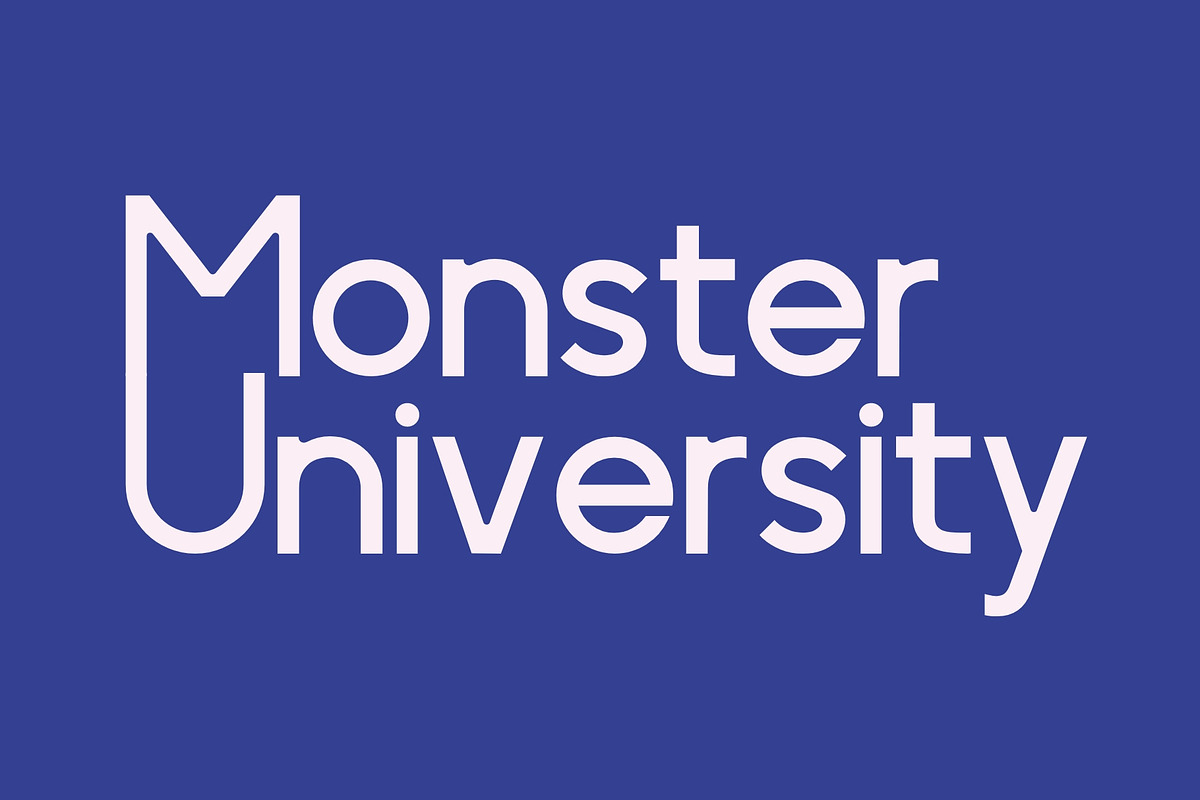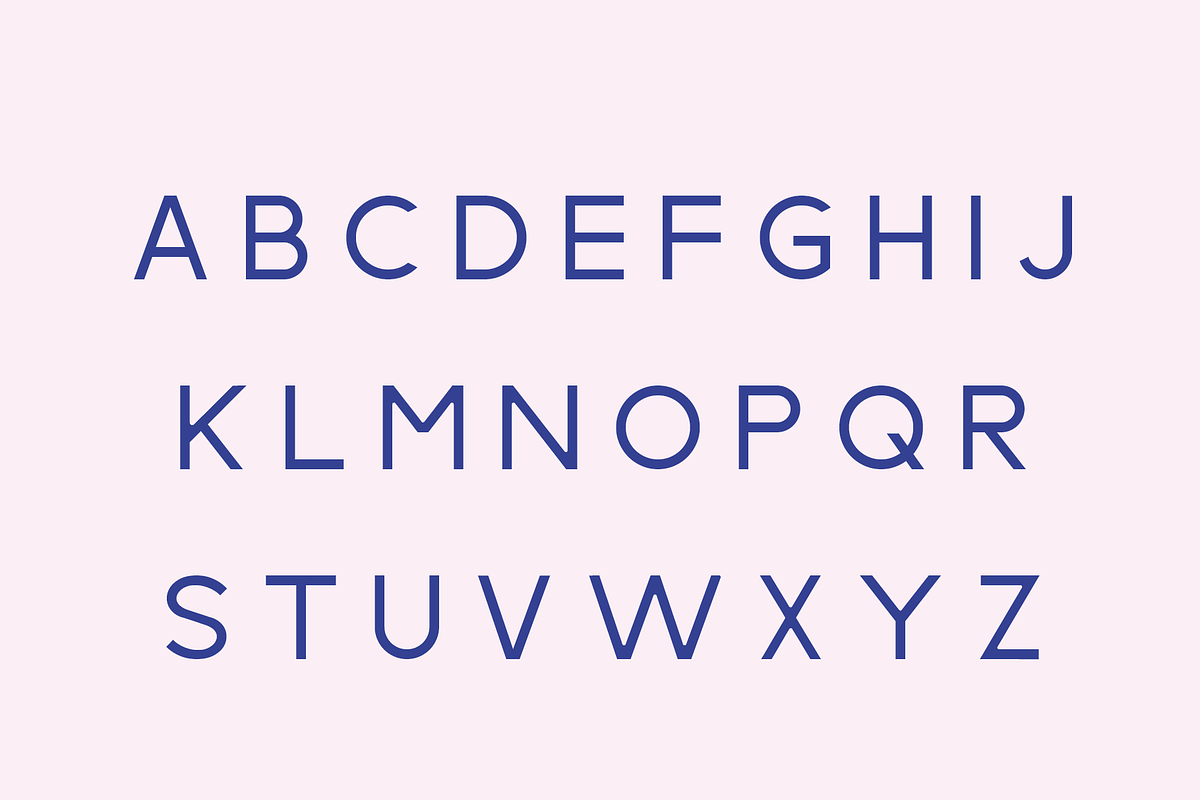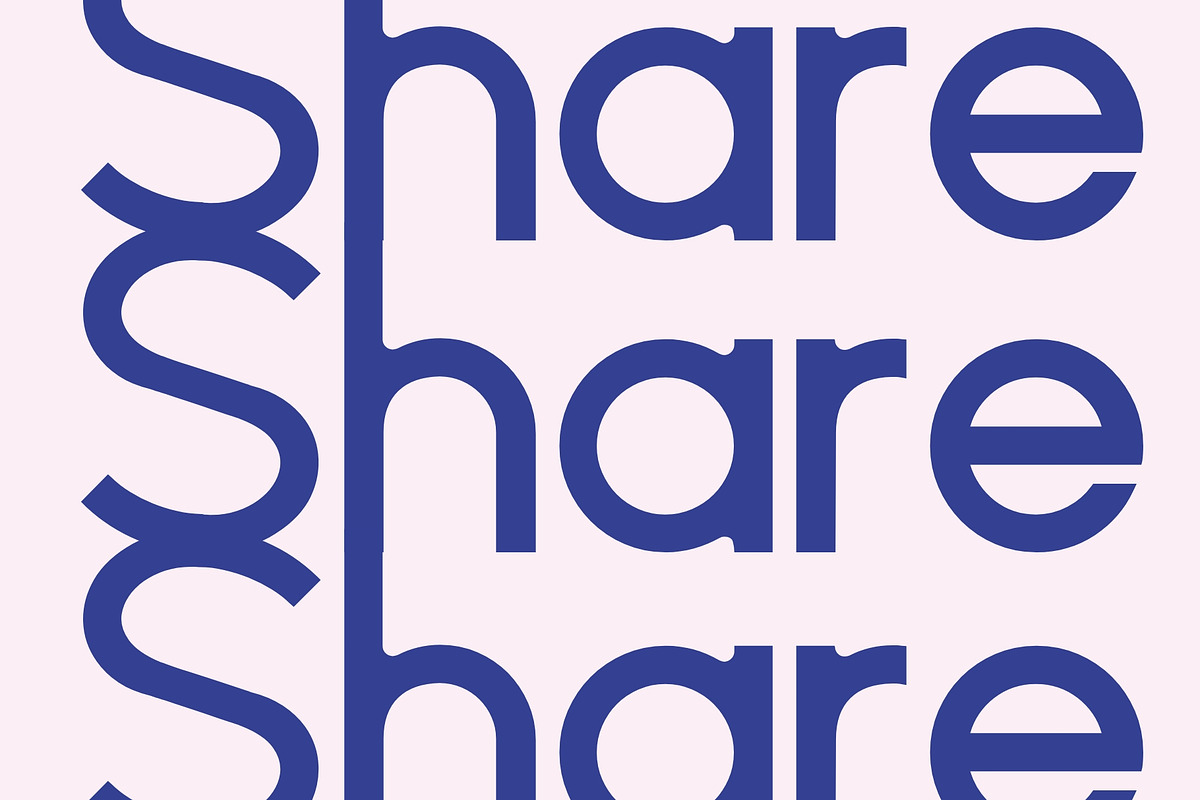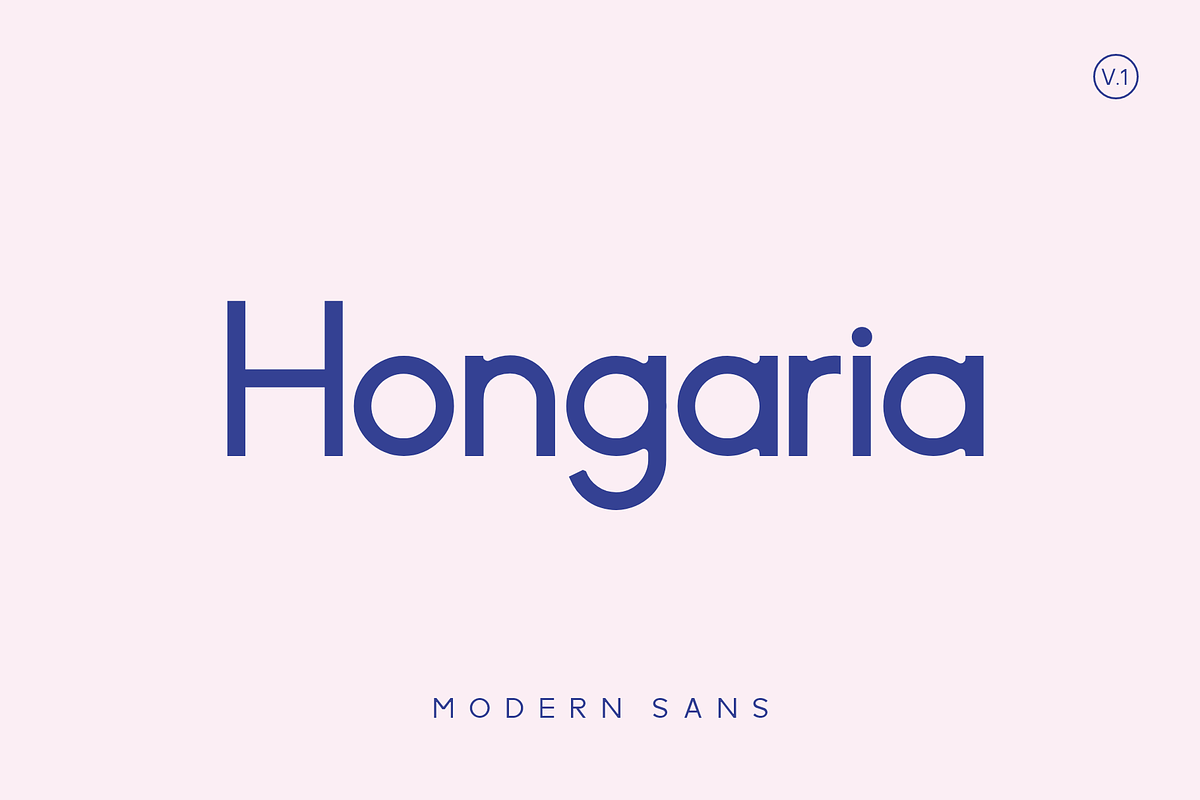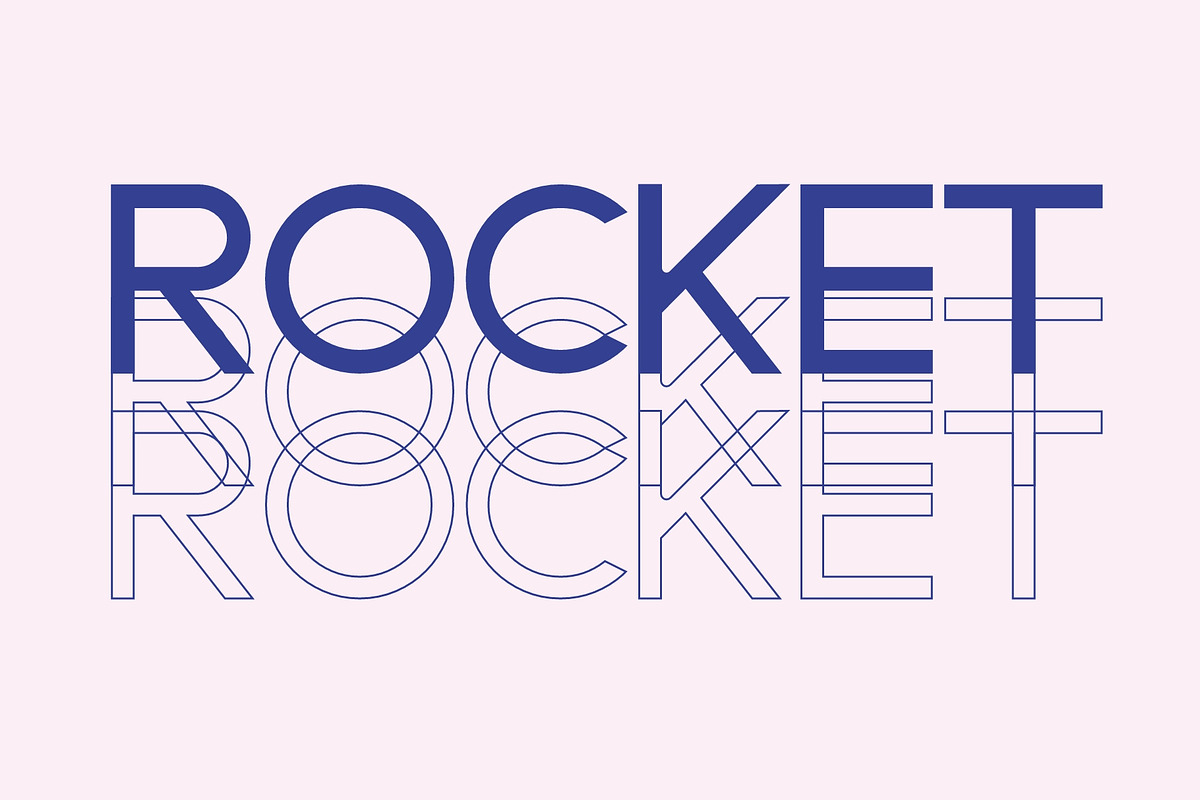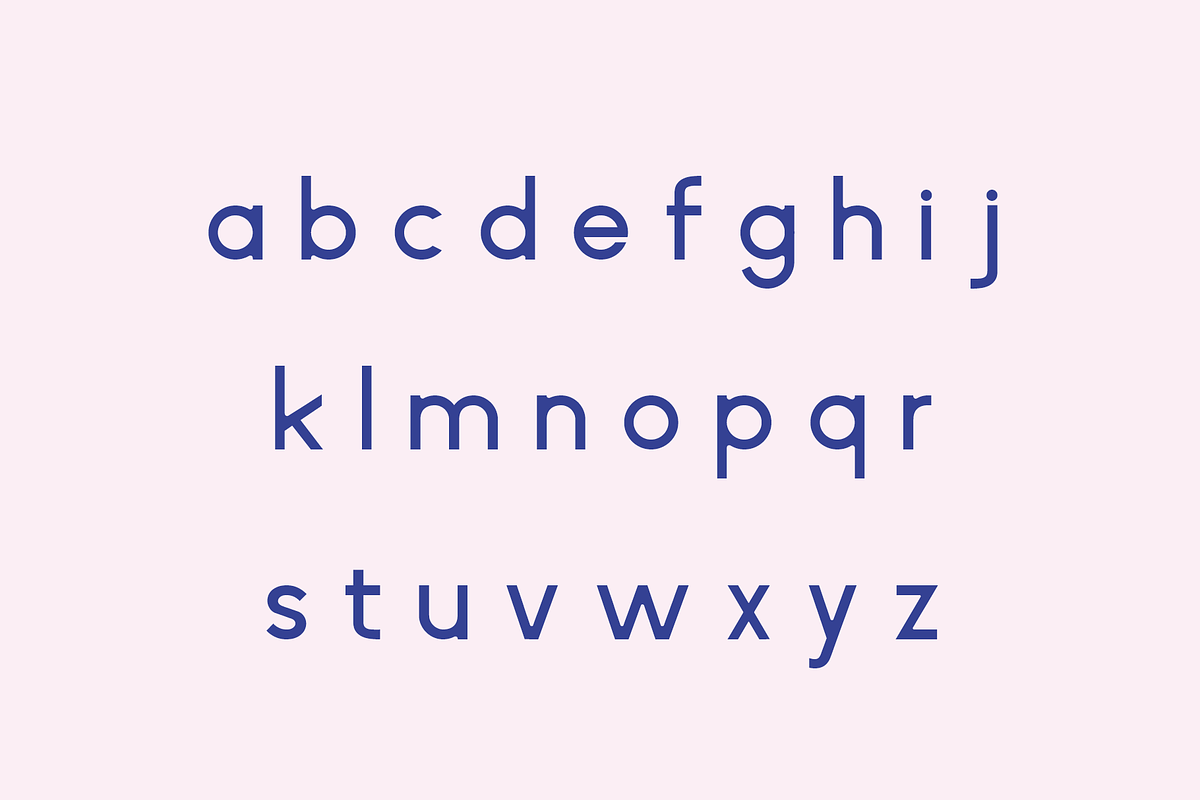
Hongaria Modern and Future Sans
Hongaria Modern and Future Sans is a font designed for future projects. can be applied in various applications. The combination of symmetrical and geometric construction of upright uppercase and lowercase letters gives it a soft modern feel. suitable for future projects, movie posters, modern websites, flyers, logo designs.